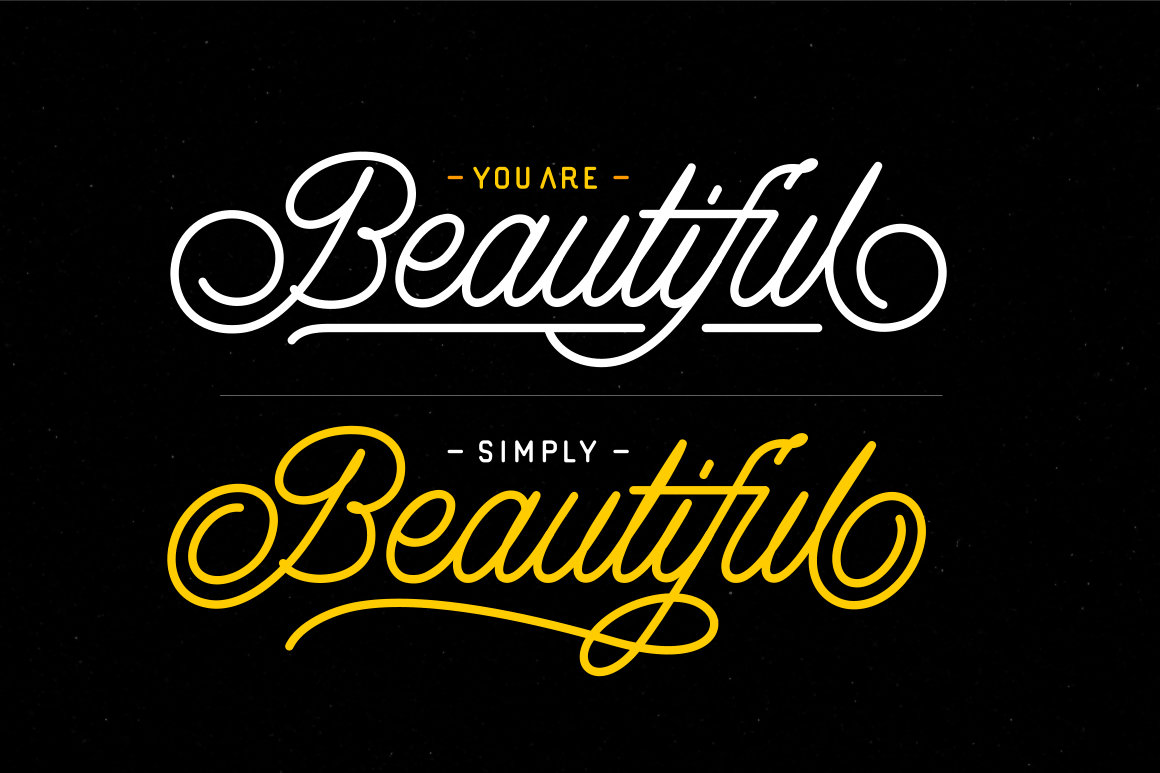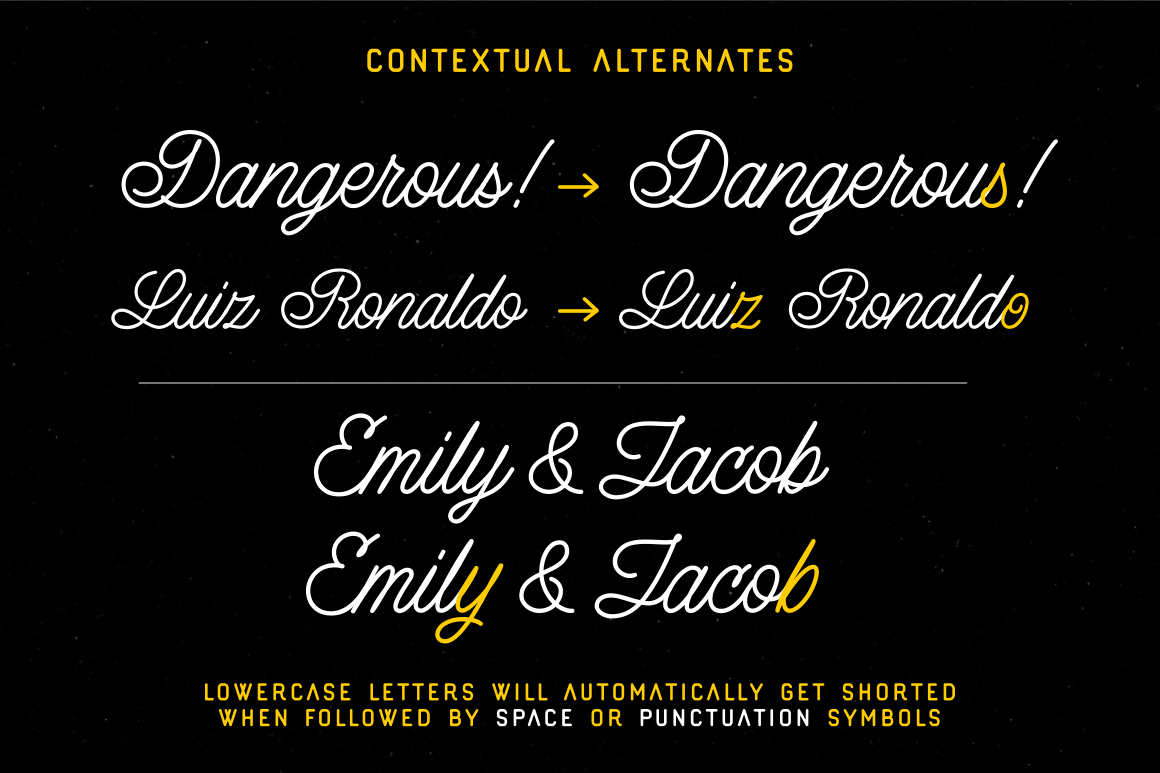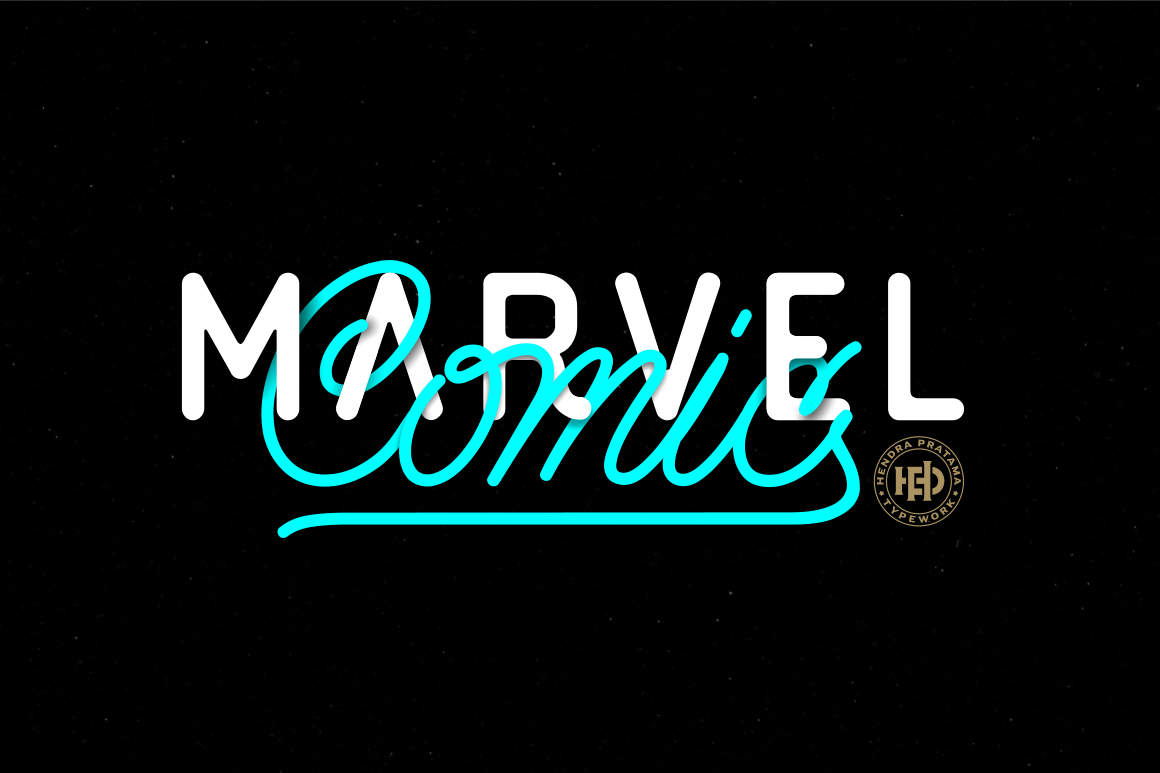
Introduction to Lazy Ride  Font
The Lazy Ride font is a mono-linear script font, that was created after a custom logotype assigned for the “Lazy Ride Club”, a classic motorcycle club.
This font is PUA encoded which means you can access the available glyphs and swashes with ease .